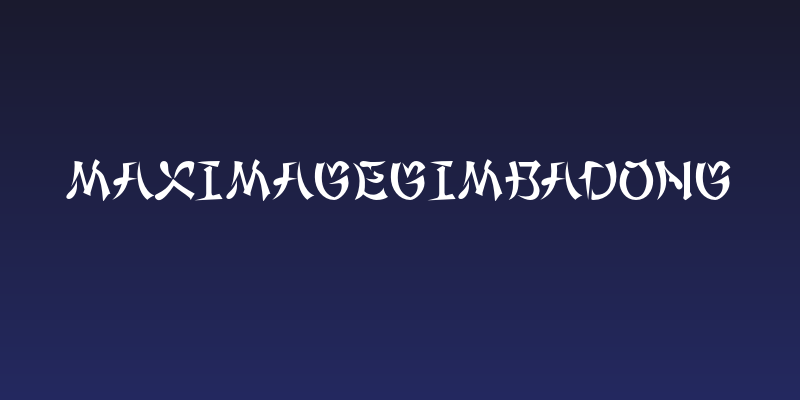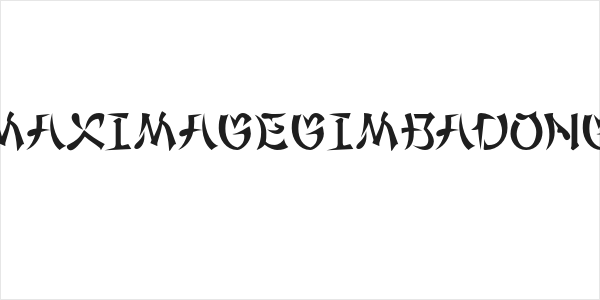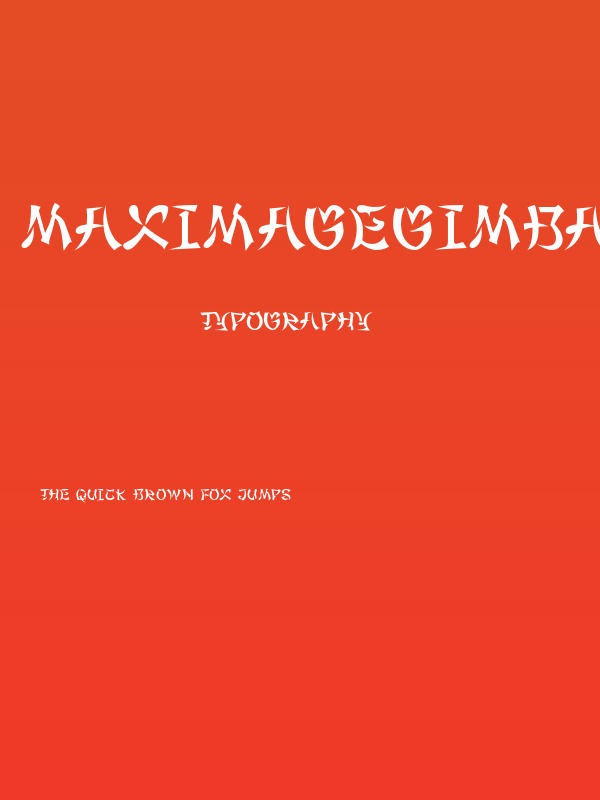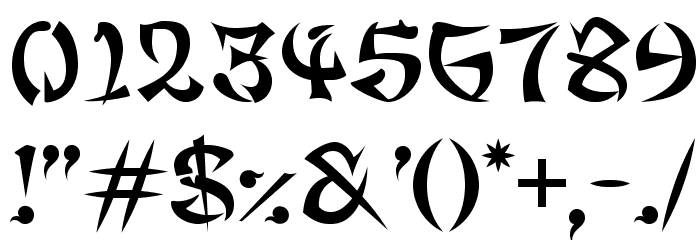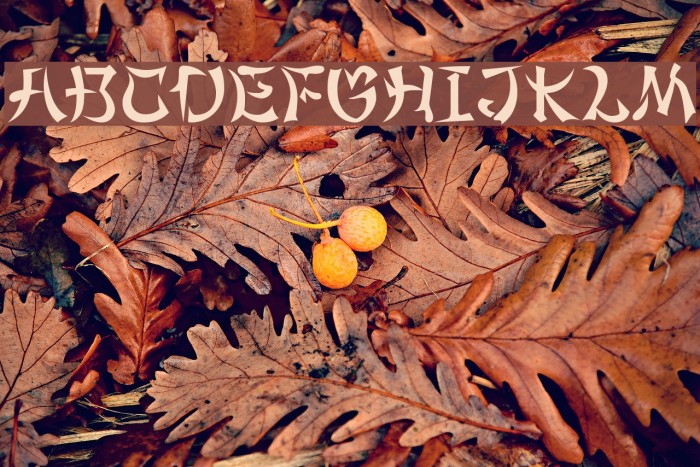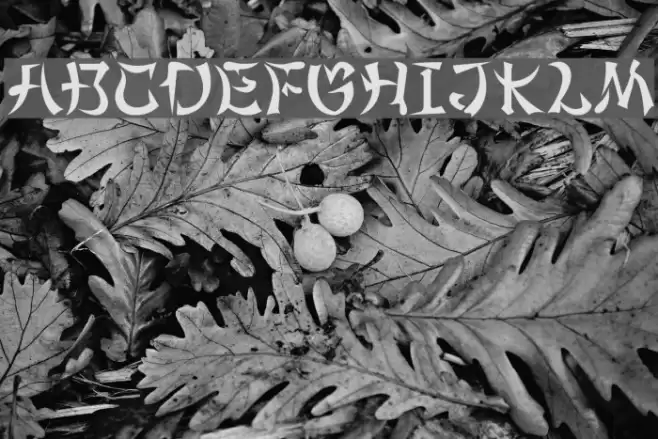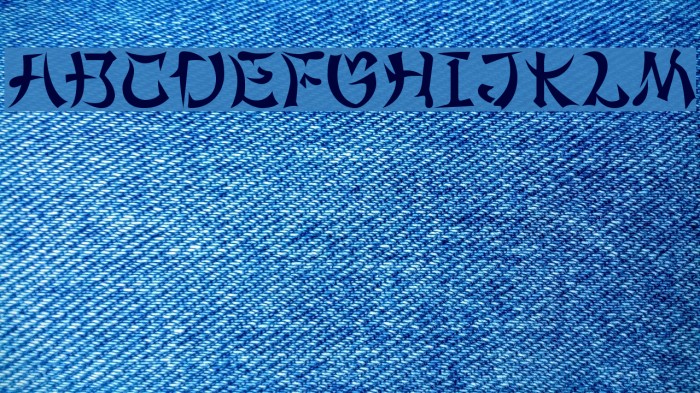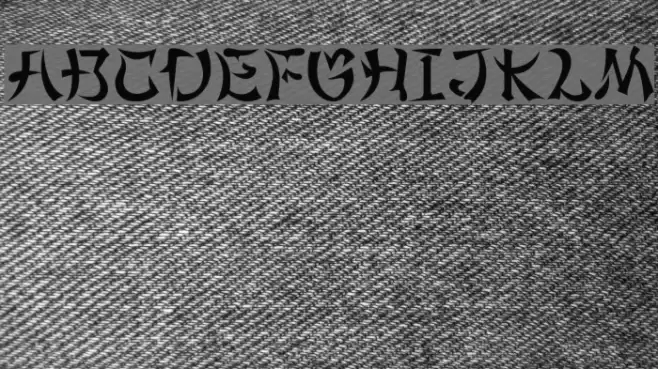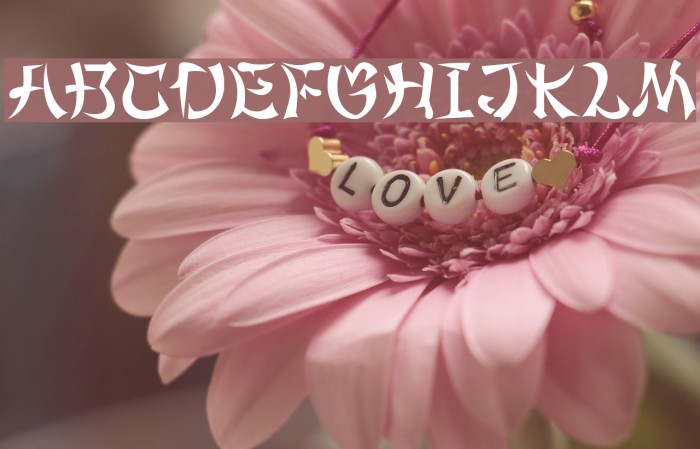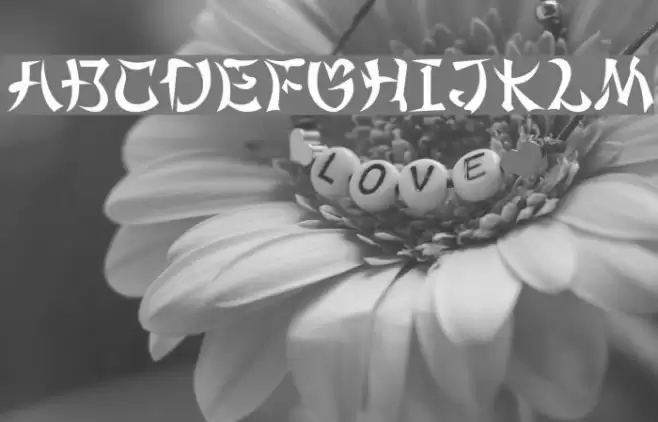
MaximageGimbadong Font
MaximageGimbadong Description
This font features a bold and dramatic style with sharp, angular edges and a distinct gothic influence. The characters are highly stylized, with exaggerated curves and pointed serifs that give it a unique, edgy appearance. The uppercase and lowercase letters maintain a consistent design, enhancing the font's cohesive look. Numbers and special characters are equally bold, ensuring they stand out in any design. This font's striking appearance makes it ideal for projects that require a strong visual impact.
| Overall Style | Gothic, Decorative |
| Use Case | Logos, Posters, Headlines |
| Proposed Projects | Ideal for tattoo designs, band logos, posters, and any project needing a bold, edgy aesthetic. |